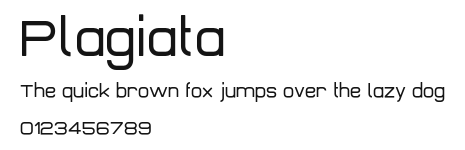
Plagiata Preview
• Font Name: Plagiata
• Full Font Name: Plagiata
About Plagiata.otf
Plagiata.otf is a modern, elegant sans-serif font designed for ultimate readability and visual harmony. Perfect for branding, headlines, web design, and print materials.